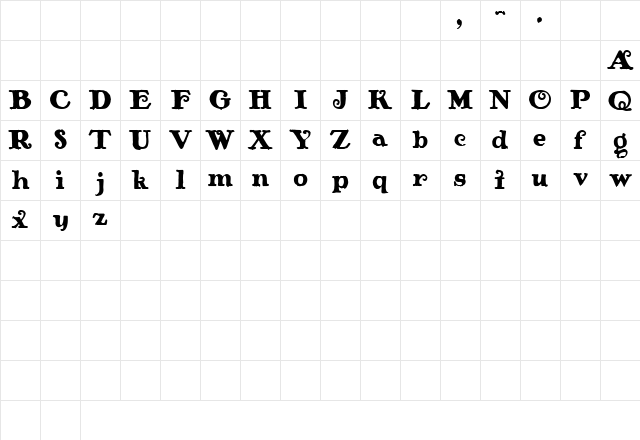
Plakat Regular
Design Context for Plakat
Plakat is a composed and adaptable typeface that performs quietly and consistently across a wide range of design contexts.